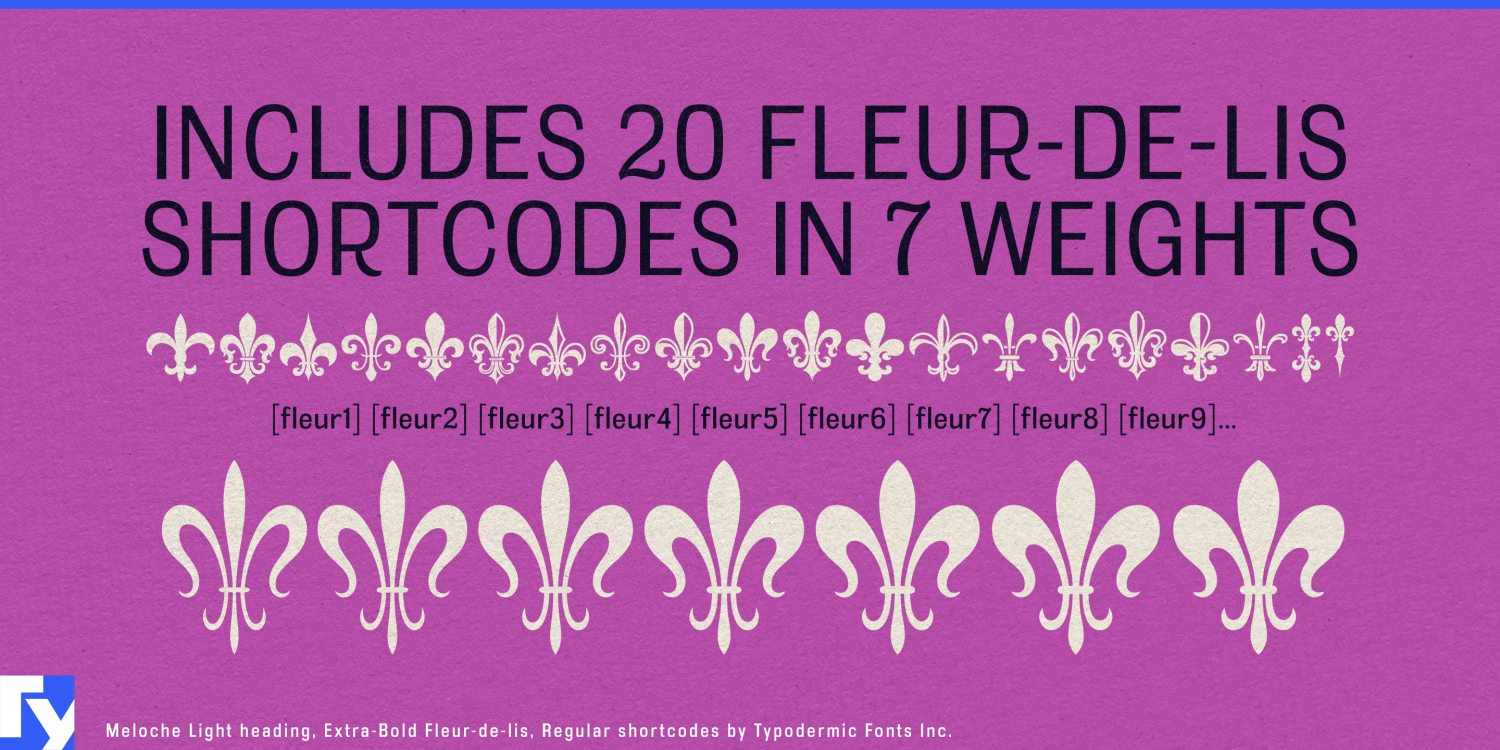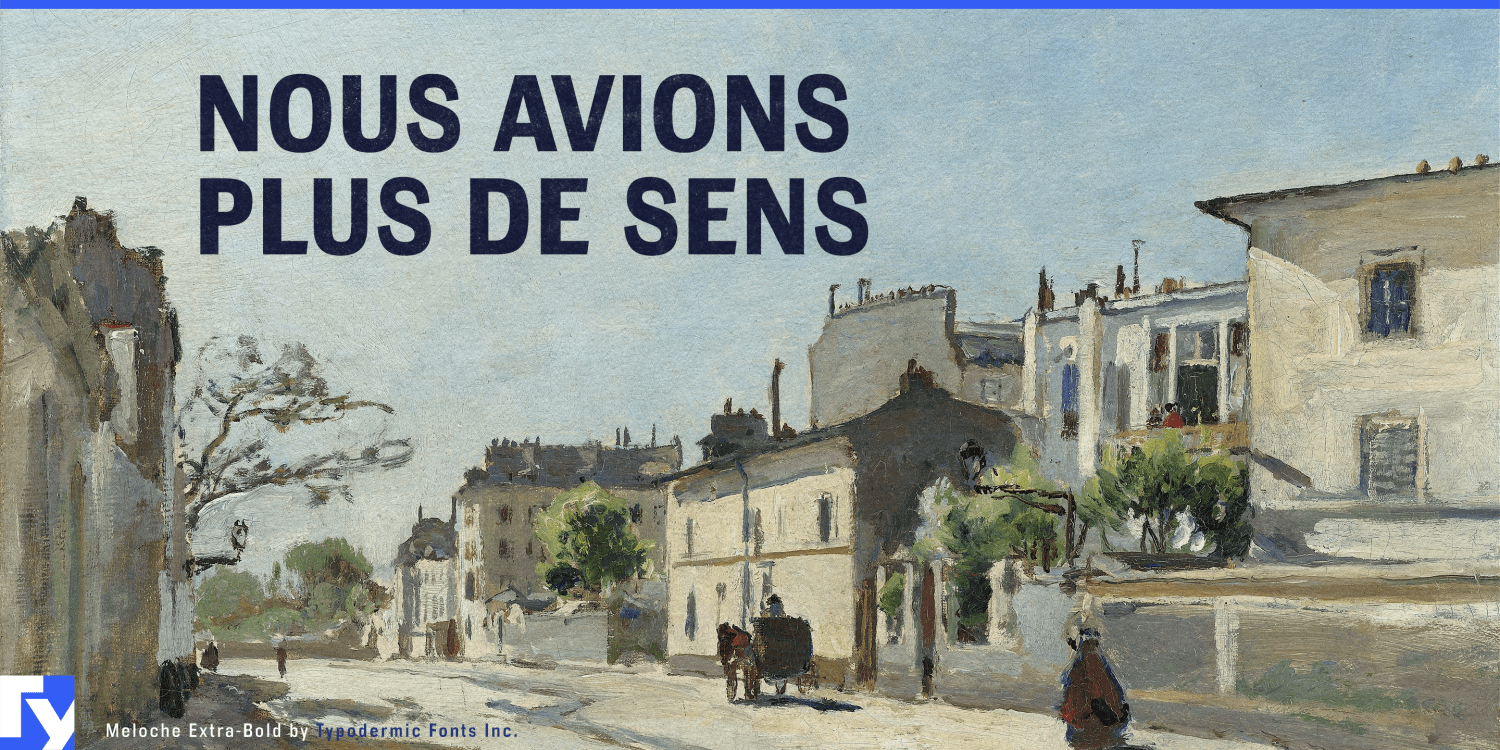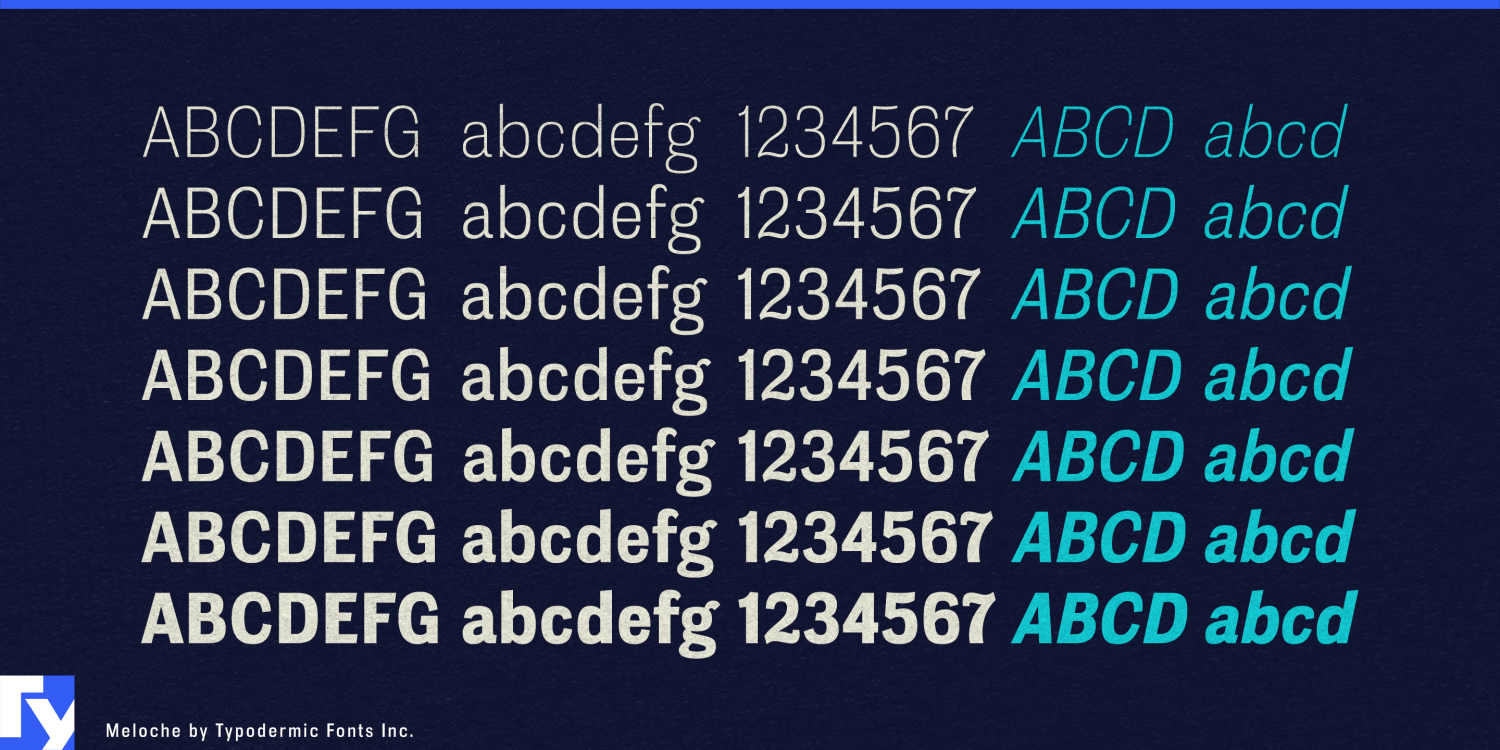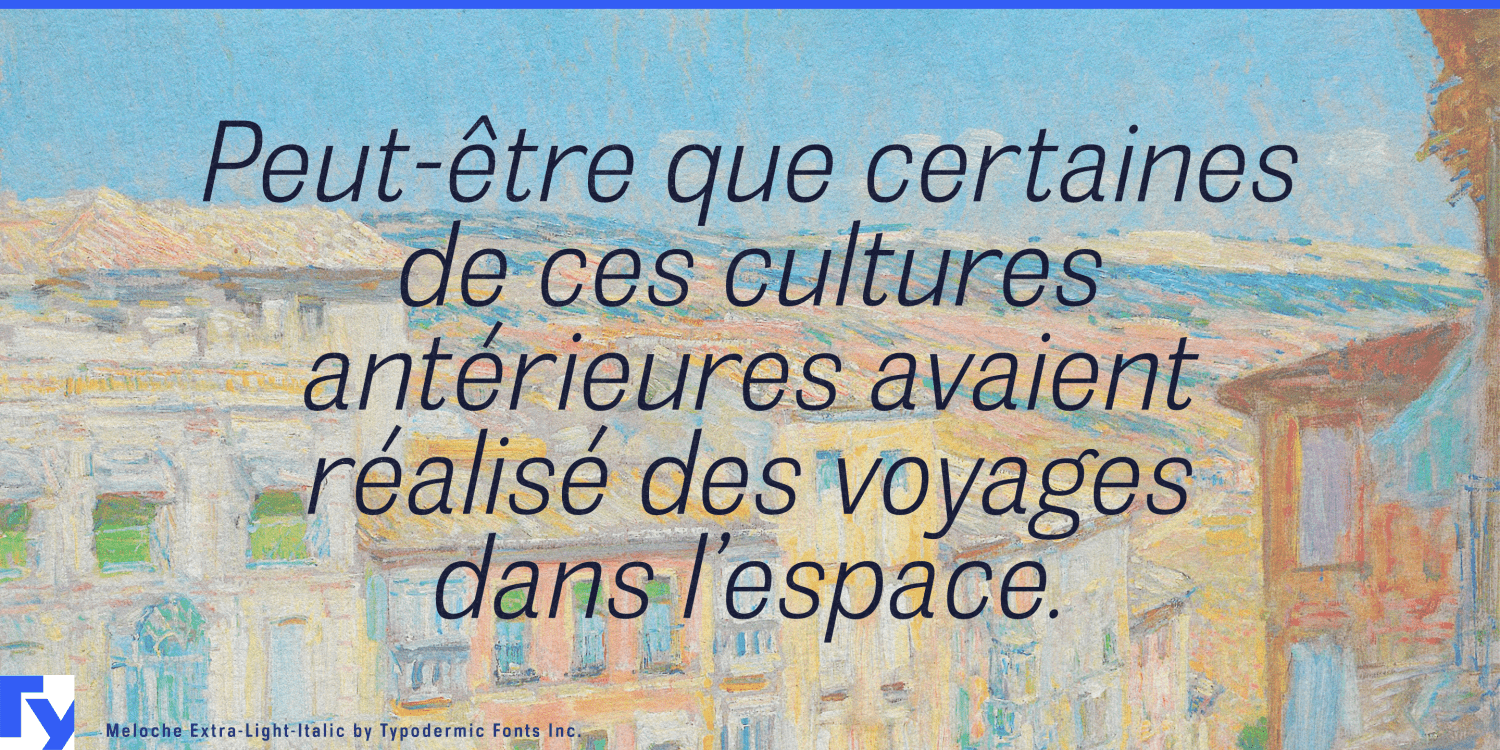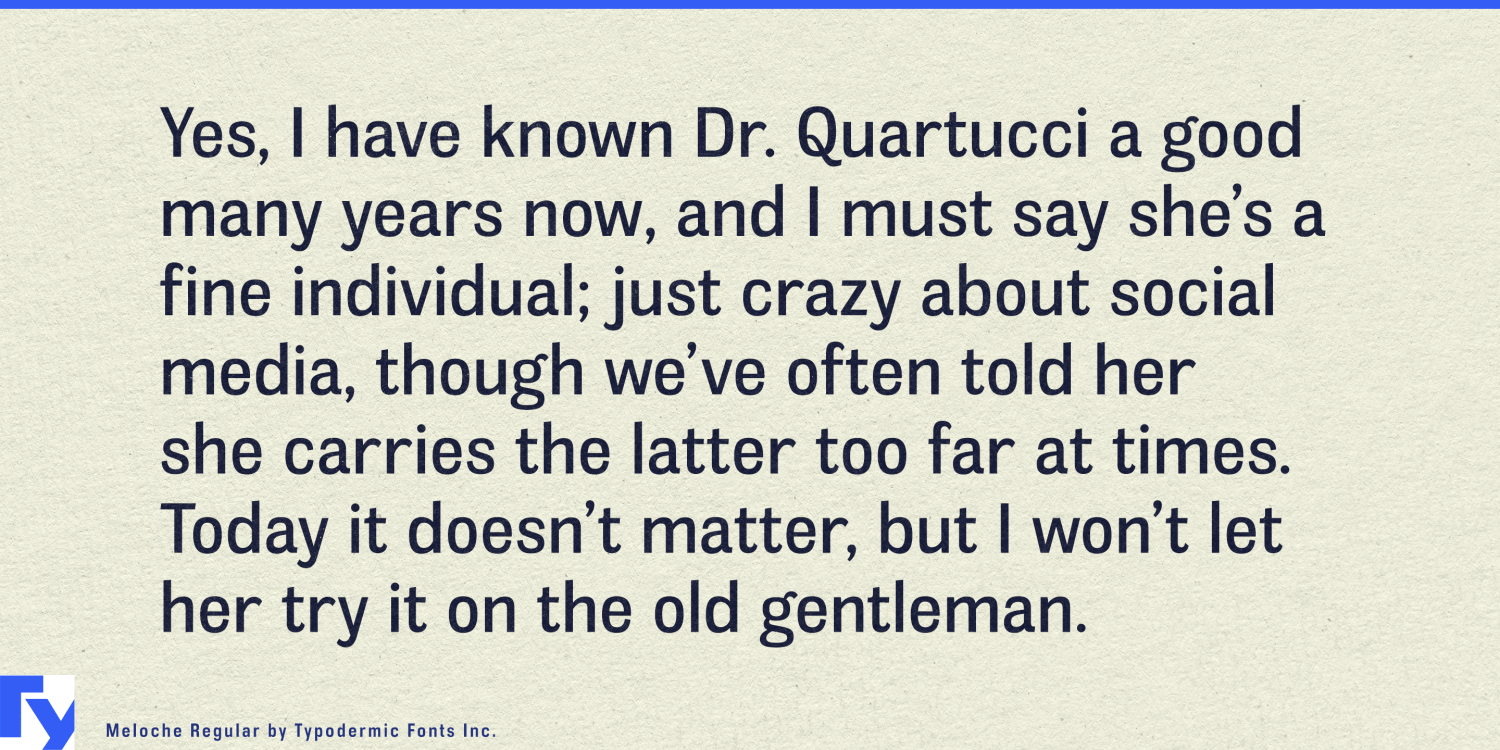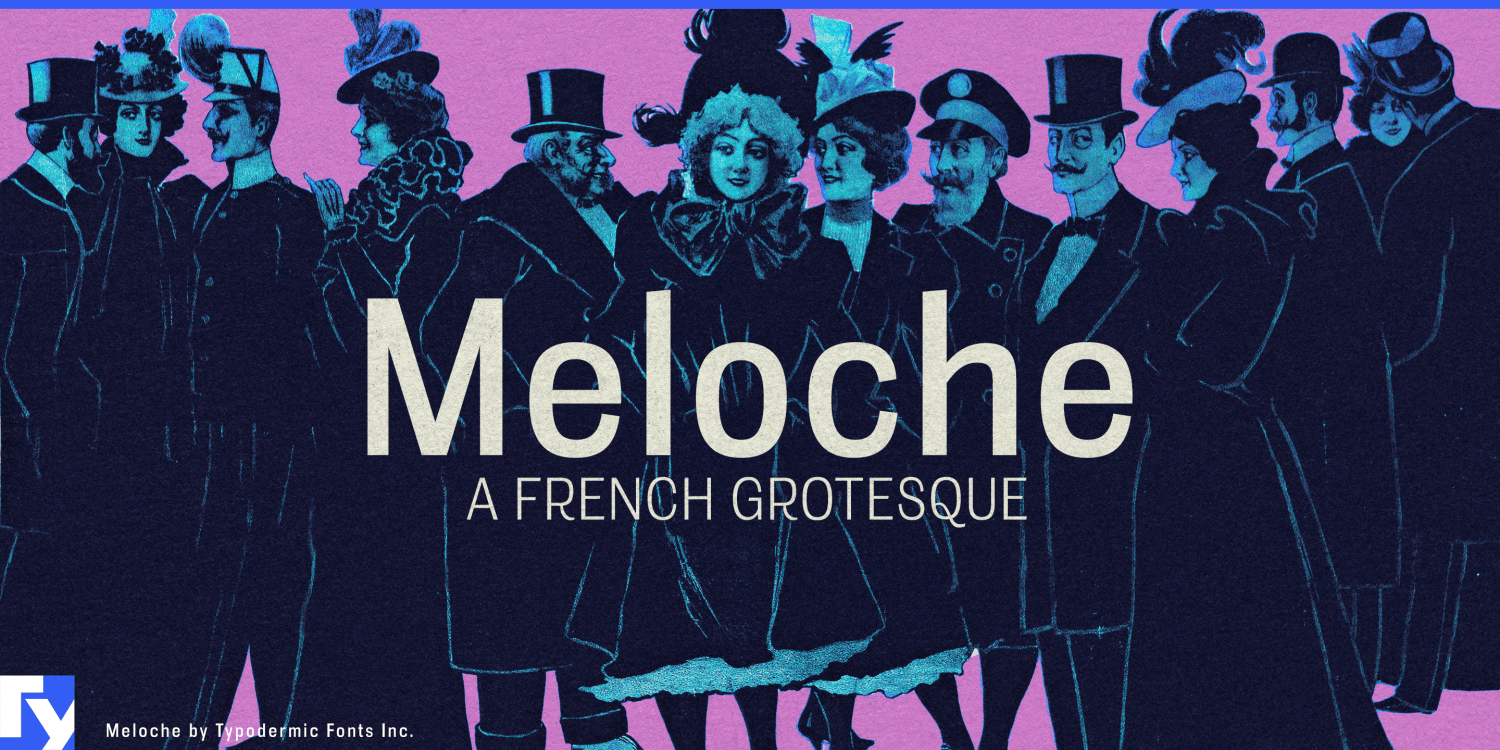
Meloche
Step into the romantic streets of 19th-century Paris with Meloche, a grotesque sans-serif typeface that breathes life into the charming aesthetic of hand-painted French signage. This exquisite typeface doesn’t merely emulate history—it resurrects…